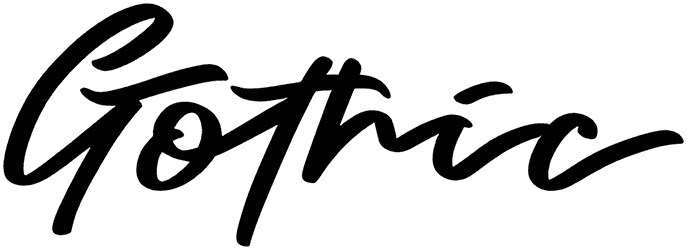
Gothic Font
Desiring gets your viewers in a friendly aura or encourages them to keep reading as a positive routine. Here, a handwritten font named Gothic comes up to feed you. Despite being a bit unreadable, it brings you lovely effects on any display; banners, stickers, storybooks, etc.